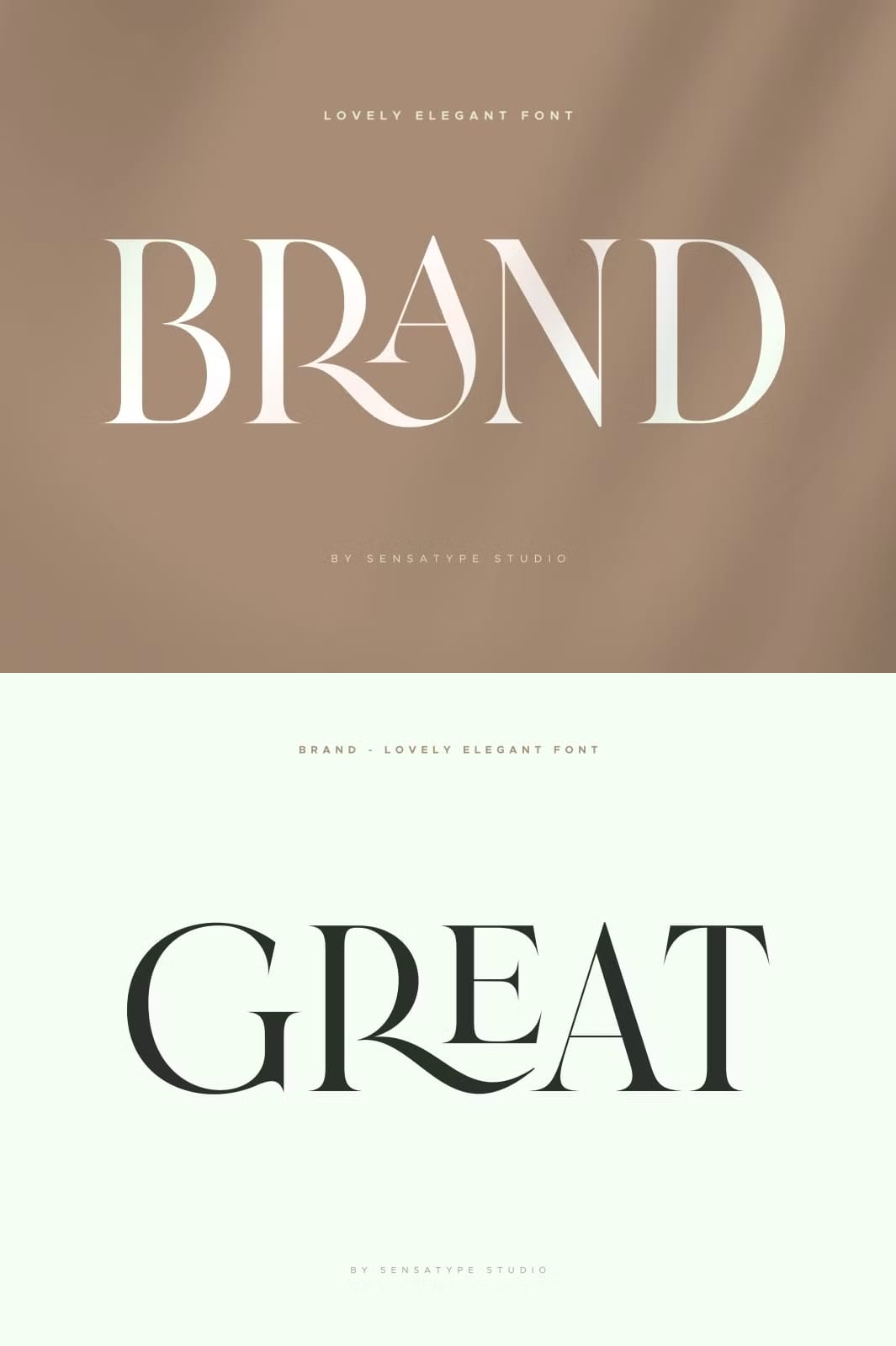
Brand – Lovely Elegant Font
Create Unique and Sophisticated Logos with Brand
Brand is a beautifully crafted elegant font designed to meet the needs of graphic designers and creative professionals who seek to create unique, classy, and memorable logos. Drawing from extensive experience working with various companies, this font was developed to provide a perfect balance between elegance and distinctiveness, making it an ideal choice for branding and logo design projects.
Designed for Professional and Creative Use
Understanding the demand for fonts that combine style with functionality, Brand offers a refined typographic solution that elevates your design work. Whether you are crafting a corporate identity, a boutique brand logo, or a stylish label, Brand’s graceful letterforms and sophisticated curves ensure your designs stand out with confidence and charm.
Comprehensive Character Set and Features
Brand comes with a full set of uppercase letters, multilingual characters, numerals, and punctuation marks, providing you with all the essential elements needed for versatile design applications. Additionally, the font includes a rich collection of ligatures that enhance the flow and visual appeal of your typography. These ligatures can be easily accessed by typing lowercase letter combinations (for example, “r+a”), allowing you to add subtle stylistic touches effortlessly.
Perfect for a Wide Range of Design Projects
Brand is not only ideal for logos but also works beautifully for branding materials, packaging, business cards, invitations, and any project that requires a touch of elegance and uniqueness. Its clean and sophisticated style ensures your designs communicate professionalism and creativity.